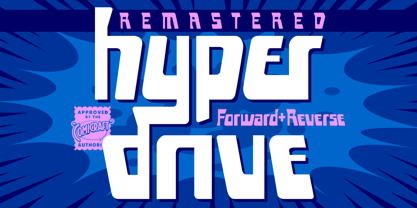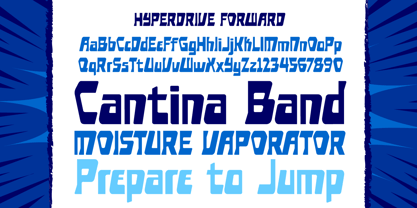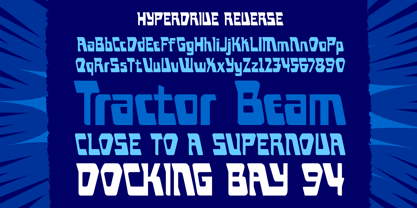
Hyperdrive
by Comicraft
About Hyperdrive Font Family
If you're about to make the jump into hyperspace, buckle up and engage your R2 unit with our new font release, HYPERDRIVE! Ten years in the making, we've spent almost as much time developing these characters as George Lucas spent developing his! Co-created by Starkings & Roshell (HYPERDRIVE, not George), this font is guaranteed to keep TIE fighters off your tail and will always come in useful if you get menaced by phantoms or attacked by clones. So sit back, relax and enjoy the flight -- but don't forget; let the Wookiee win!
Remastered Hyperdrive includes new letter shapes, 200+ connecting letter combos, improved spacing & kerning and support for Western & Central Europe.
About Comicraft
The World's Greatest Comic Book Fonts! Having dutifully lettered thousands of comic books, Comicraft's Fearless Fonts save the day in video games, TV shows, movie titles and wherever fun, lively fonts are needed. In 1992, the Dynamic Duo of Richard Starkings and John Roshelll, and their Fearless Fleet of Font Finaglers, began providing unique design and fine lettering to the comic book, TV and video game industries, and have become known for pioneering the use of the computer in the art of comic book lettering. Trapped in a world they never made, Comicraft's Fearless Fonts will come to the rescue in the nick of time!The Premium foundry page can be viewed at: myfonts.com/a/font/premium-font-collections/comicraft